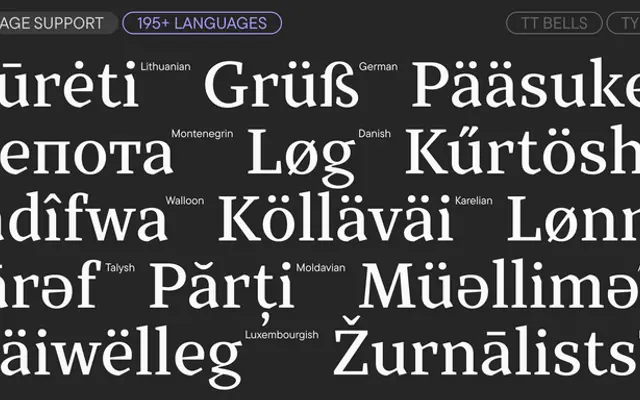
TT Bells
TypeType · Marina Khodak, Nadyr Rakhimov, Ivan Gladkikh · 2016
An old-style serif from TypeType that grafts sharp geometric terminals onto a broad-nib structure, intended for both display and continuous text.
Built on broad-nib conventions associated with pre-digital old-style typefaces, TT Bells introduces straight stroke terminals and wedge serifs alongside clean geometric details. The family spans 14 styles including upright and italic variable fonts, covering 195 languages with 691 glyphs per style and 22 OpenType features. At smaller sizes the sharpness recedes and the face reads more classically, making it genuinely functional at both ends of the size range.
TT Bells draws on broad-nib old-style conventions with wedge serifs and straight stroke terminals, overlaid with sharp geometric touches that place it firmly in the old-style serif tradition with a contemporary edge.